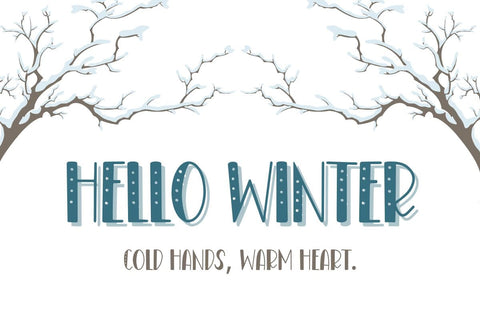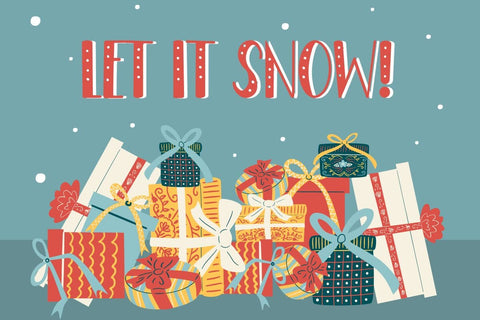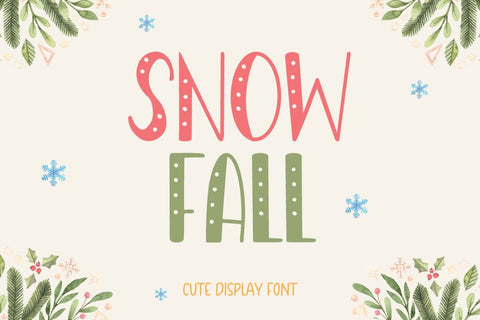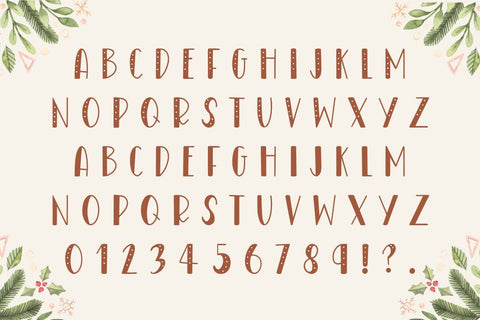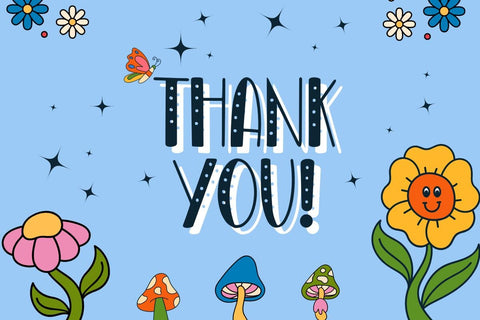
Snow Fall - Cute Winter Display Font
Snowfall is a delightful and playful hand-drawn display font that instantly brings a touch of cozy winter cheer to any project! Each letter is crafted with care, featuring a cute, dotted texture that mimics falling snow or festive string lights. Its charming, casual style is perfect for making bold statements with a heartwarming feel.
- Full set of uppercase and lowercase letters
- Numbers, Punctuation, and common symbols (as seen in the preview)
Important Note: This is an all-caps font style, with two different heights/styles for the uppercase and lowercase slots (as shown in the 'A B C' preview), allowing you to mix and match for a unique look!